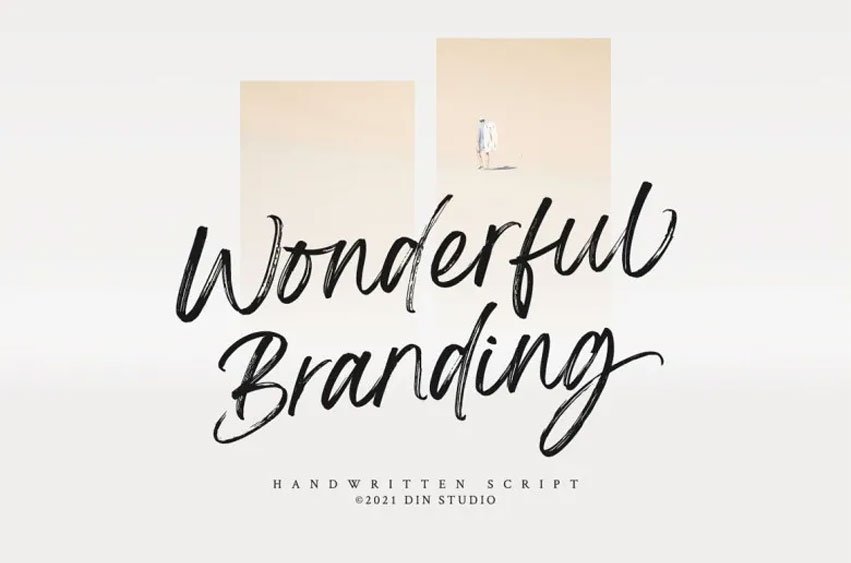
Wonderful Branding Font
Wonderful Branding Font goes beyond being just another handwritten script font; it captures the essence of style and modernity with passion and elegance in each bend and curve of this font – creating memorable impressions of sales growth while building lasting customer loyalty.
Use it to create headliners or logos, business cards printed invitations of various sorts packaging cards as well as your website and social media brand identity.